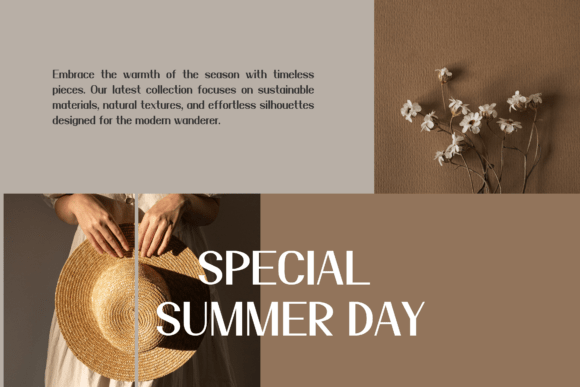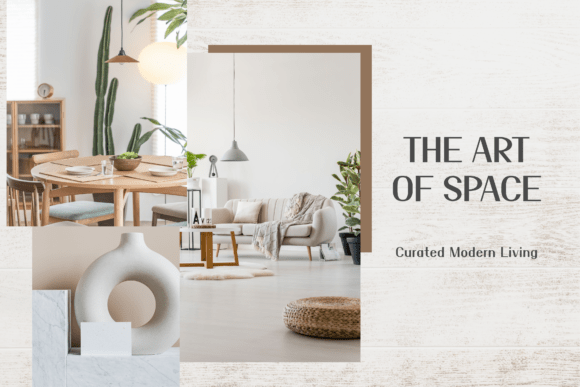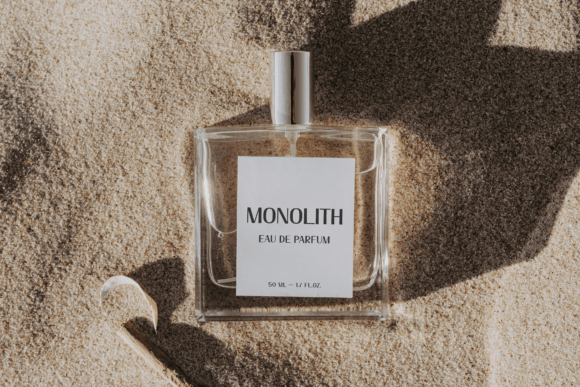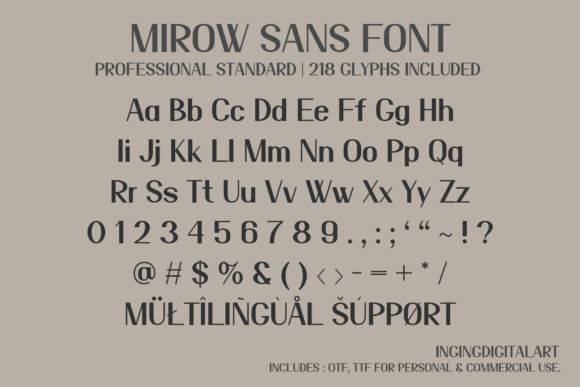
Introduction to Mirow Sans Font
Have you ever stared at a blank canvas, struggling to find the perfect font to bring your creative project to life? That moment of hesitation, the endless scrolling through font libraries, and the uncertainty of whether your design will convey the intended message can be daunting. But what if you had a trusted design resource that effortlessly elevates your high-quality visuals, adds an air of sophistication, and sets your brand apart from the rest?
Enter Mirow Sans Font, a modern sans-serif masterpiece that’s poised to revolutionize your design game. This structural sans-serif typeface is specifically designed to make a statement, with its razor-thin hairline elements and bold, high-contrast structural stems creating a stunning visual contrast that’s sure to turn heads.
With Mirow Sans Font, you can fast-forward your branding into the modern design era with an elite, structural aesthetic that screams premium luxury and industrial precision. Whether you’re working on a high-fashion runway lookbook, boutique brand packaging, or architectural exhibition posters, this font is the ultimate asset to take your design to the next level.
Key Features of Mirow Sans Font
- High-quality sans-serif font ideal for creative projects requiring a clean and modern design resource.
- Features a transparent background, allowing for seamless integration with custom backgrounds and designs.
- Designed with a focus on legibility and readability, making it suitable for body text and headings in print and digital projects.
- Part of a larger font family, Mirow Sans Font can be easily paired with other fonts to create a unique and cohesive design.
Honest Review: Mirow Sans Font
As a designer, I’m always on the lookout for high-quality design resources that can elevate my creative projects. Recently, I stumbled upon the Mirow Sans Font, and I’m excited to share my thoughts on this sleek and modern font.
Here are some things that work well: ✨ The Mirow Sans Font has a clean and minimalist design that makes it perfect for a variety of applications, from branding to digital displays. The font is highly legible, even at small sizes, making it ideal for use in digital interfaces. Additionally, the font comes in a range of weights, from light to bold, allowing for a high degree of customization.
- High-quality design that’s perfect for branding and digital displays
- Highly legible, even at small sizes
- Range of weights for customization
However, there are a few limitations: ⚠️ The font doesn’t come with a transparent background, which can be a drawback for designers who need to create graphics with a transparent background. Additionally, the font may not be suitable for use in very small print sizes.
Mirow Sans Font is ideal for use in logos, branding materials, and other creative projects where a high-quality, transparent font is required.